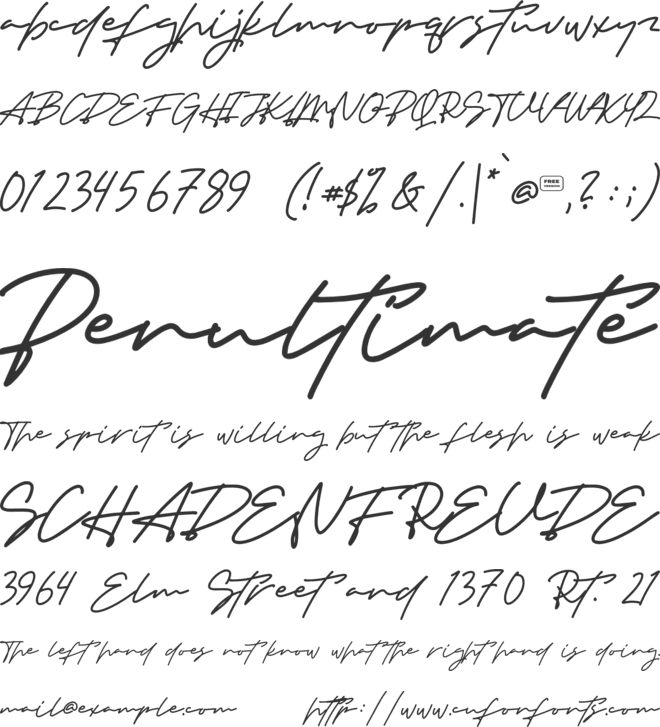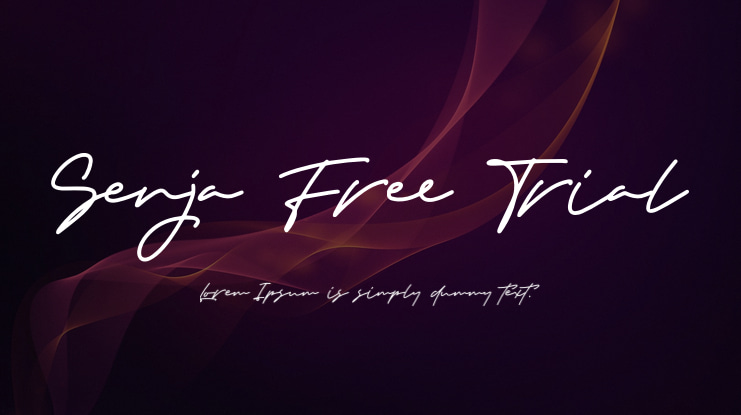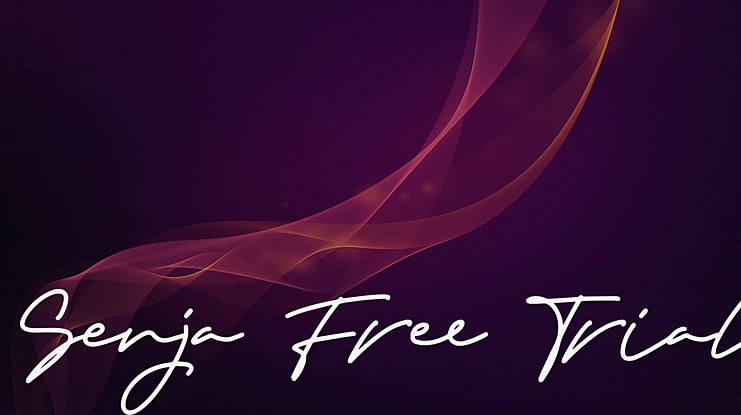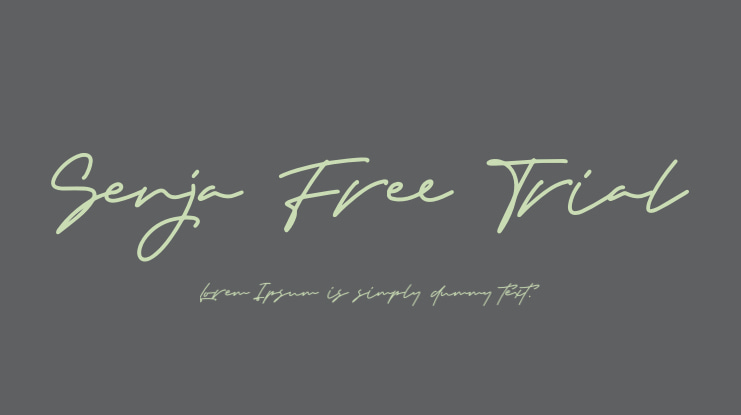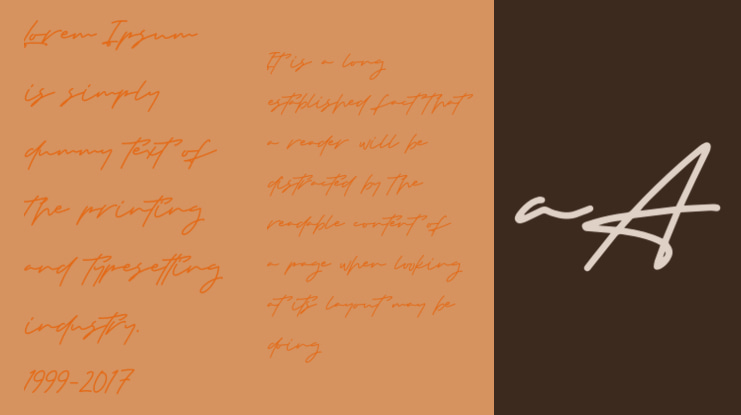
Senja Free Trial Font
typefactory
Senja is an incredibly light and authentic monoline handwritten font with a beautiful touch. Fall in love with its unique charm. Really good with beauty theme, headings, logo, brand product, and many more! Full Version Download Here :
Senja Free Trial font preview